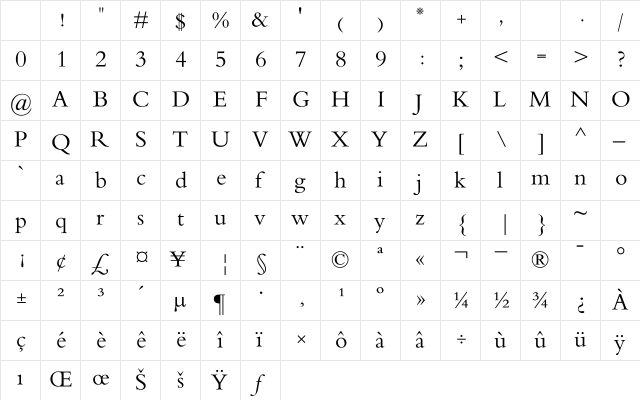
Complete Al Qalam Quran Regular glyph index. Displaying only characters natively supported by Al Qalam Quran Regular font.
Al Qalam Quran is a composed and adaptable typeface that performs quietly and consistently across a wide range of design contexts.